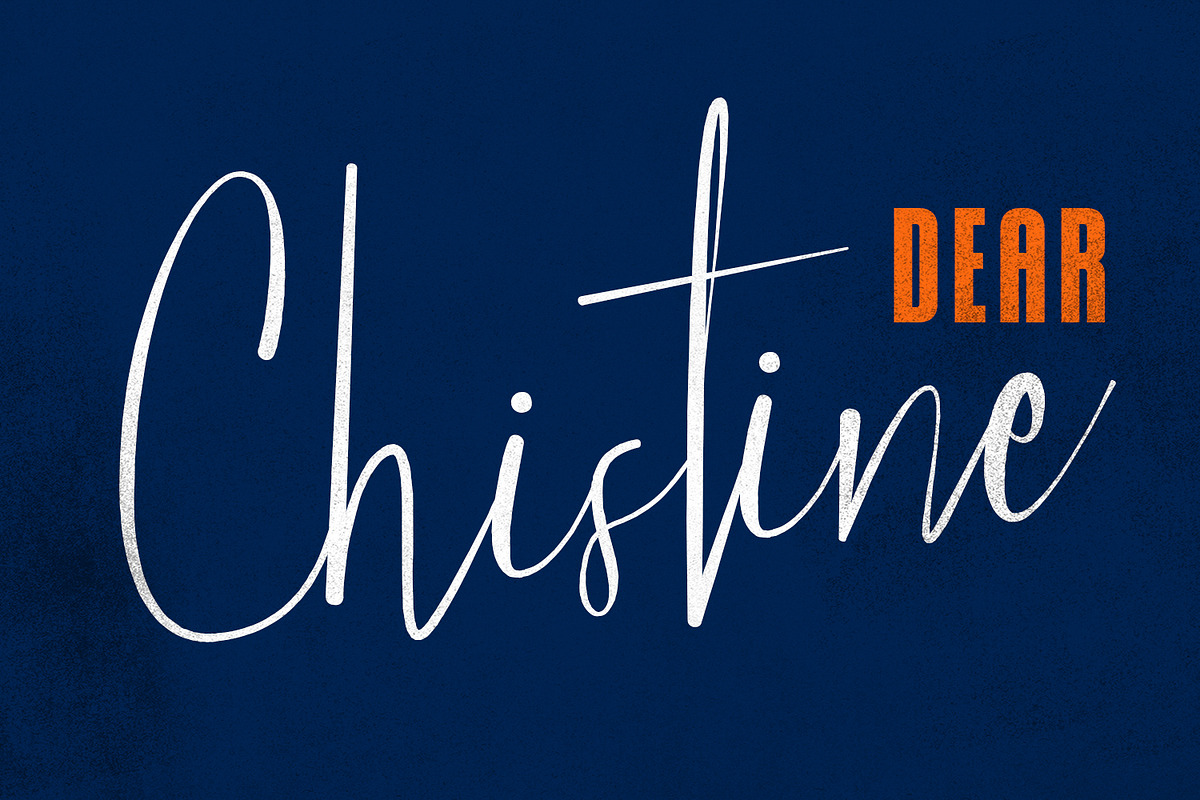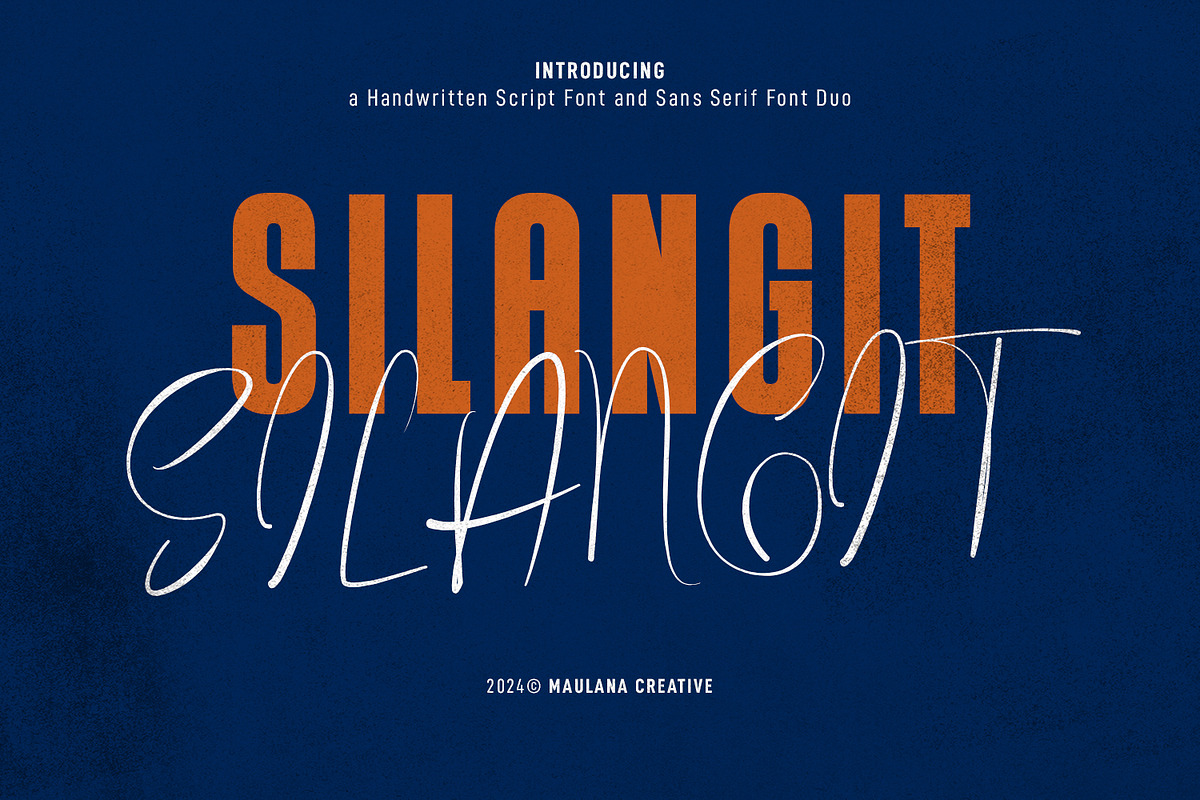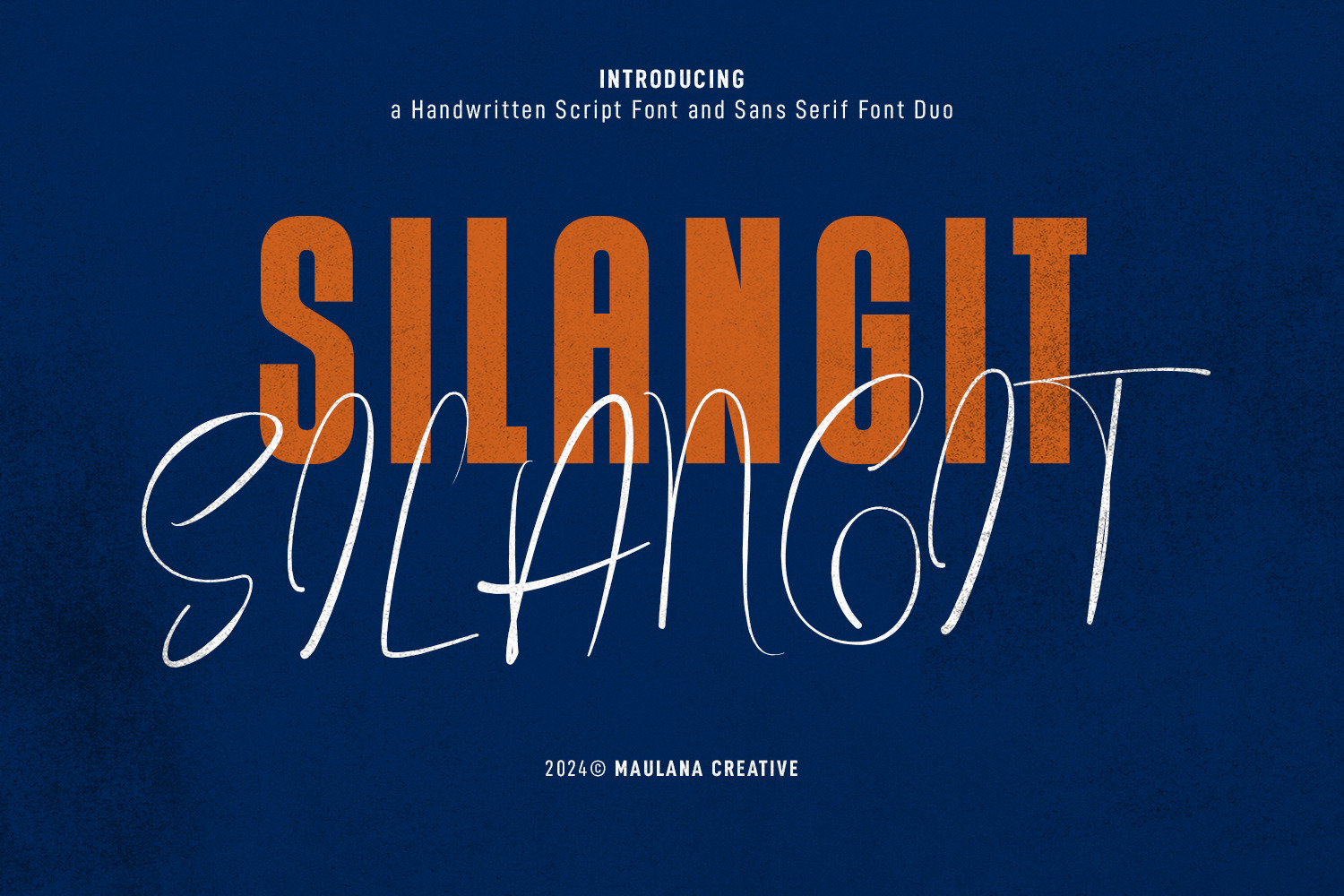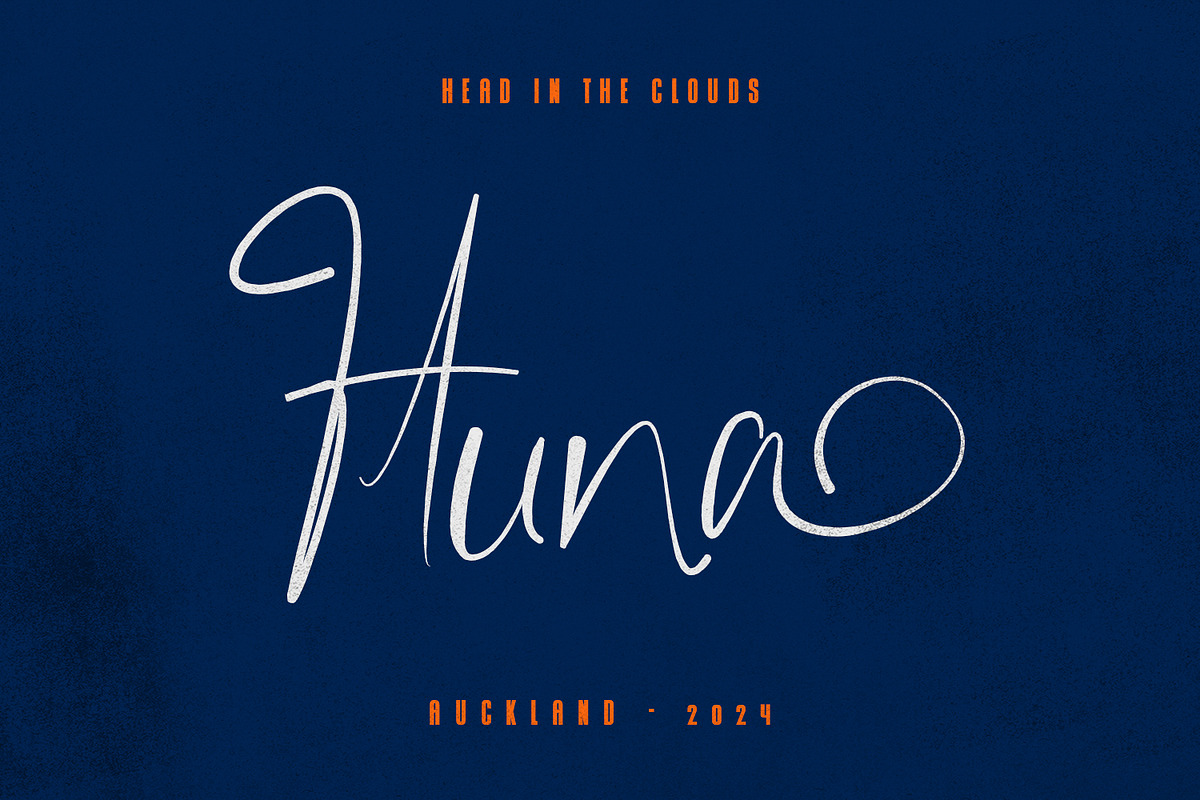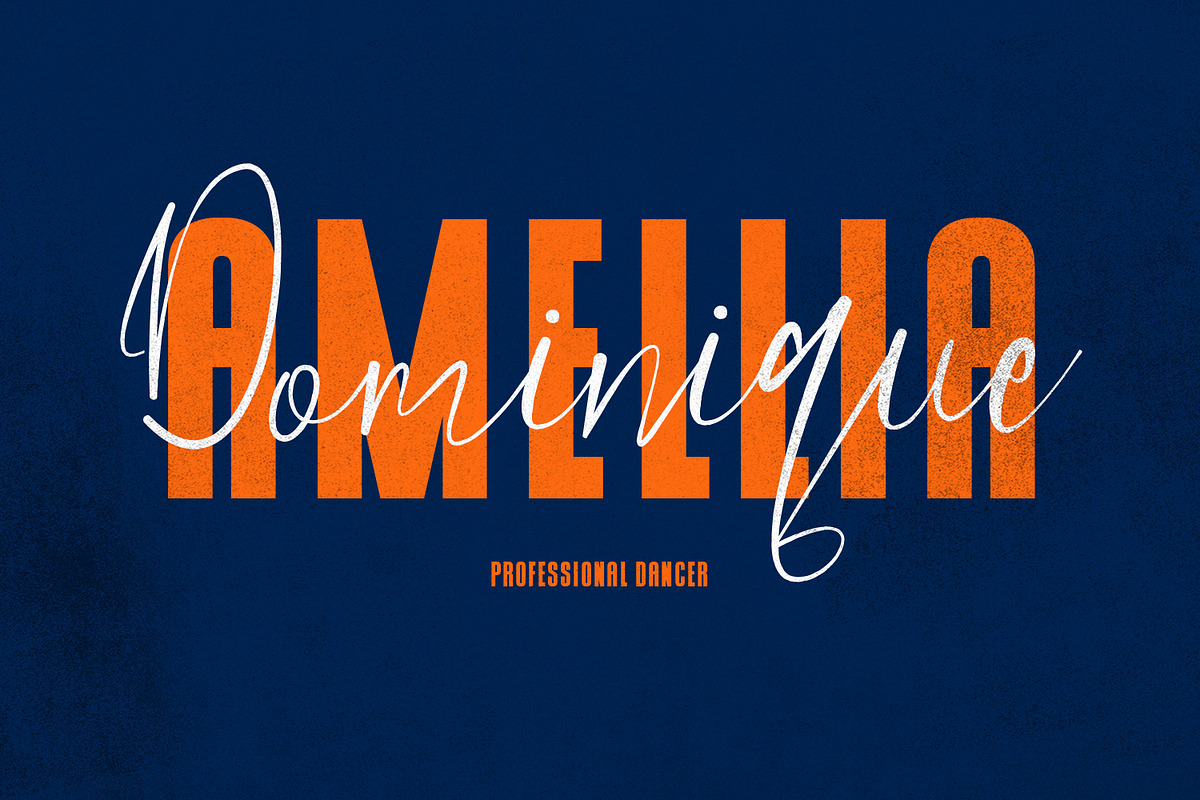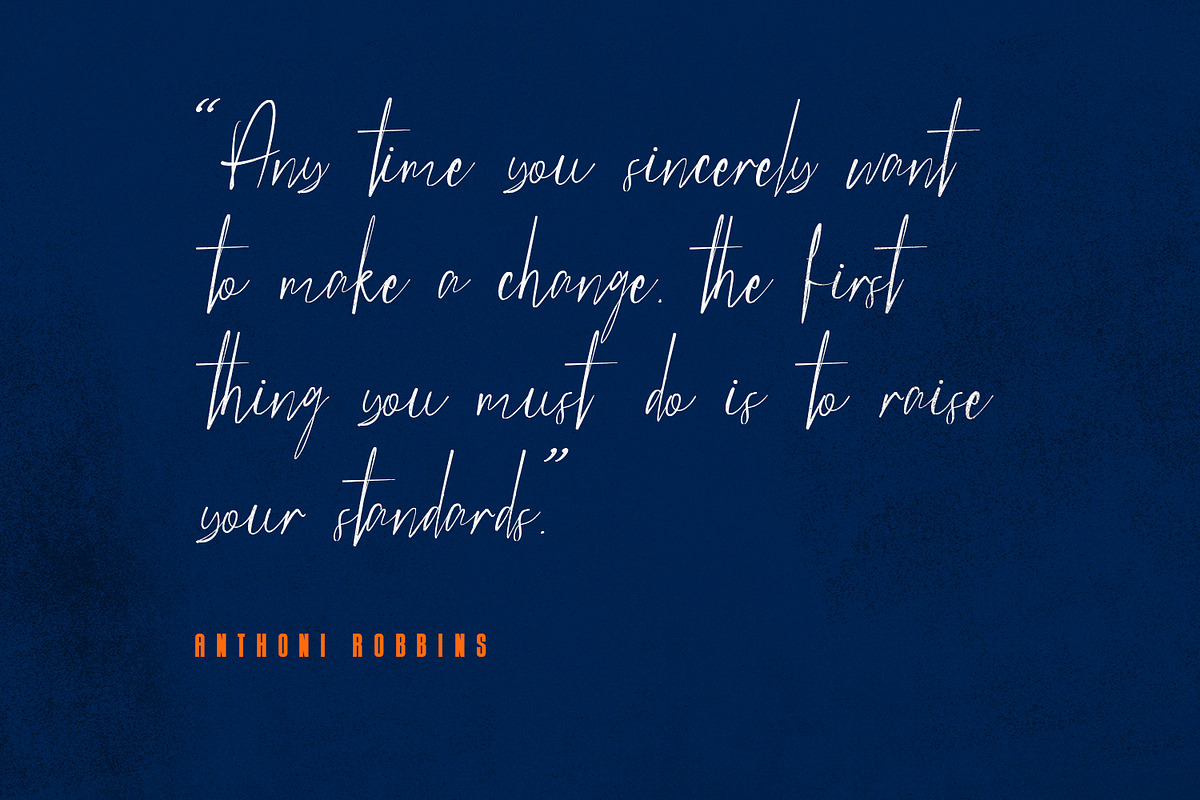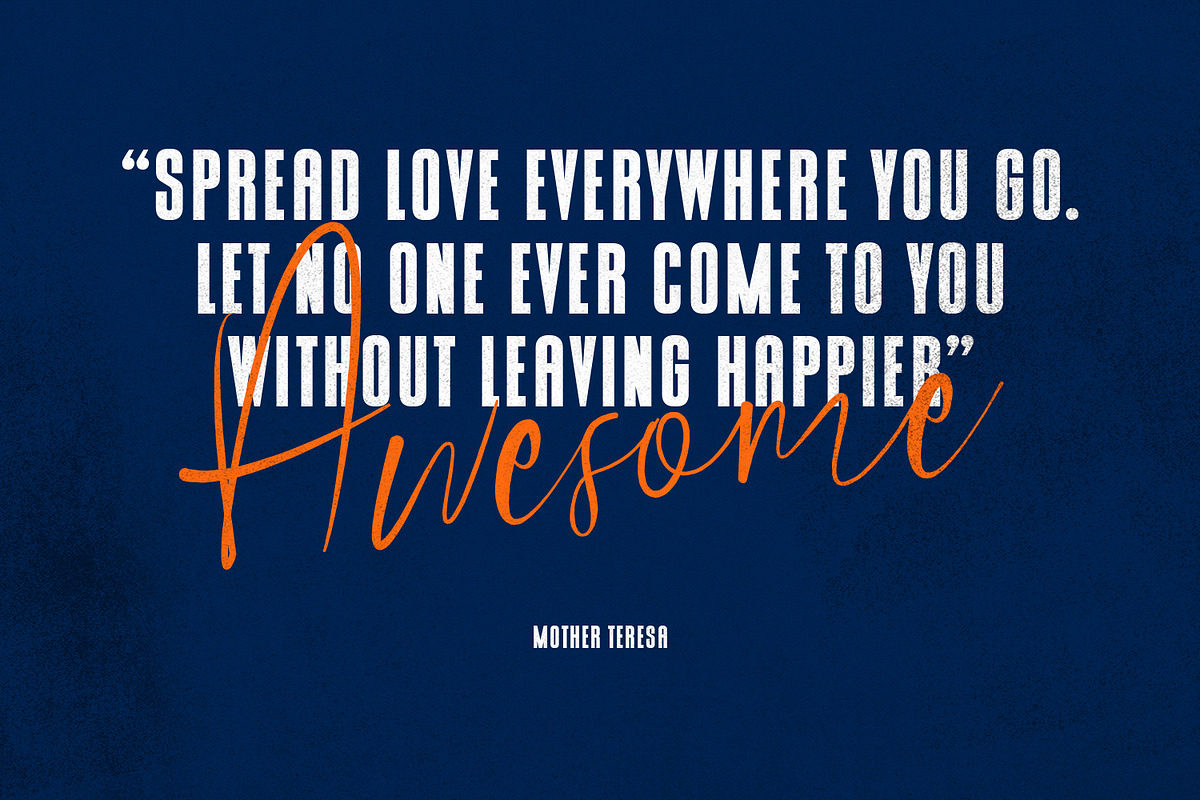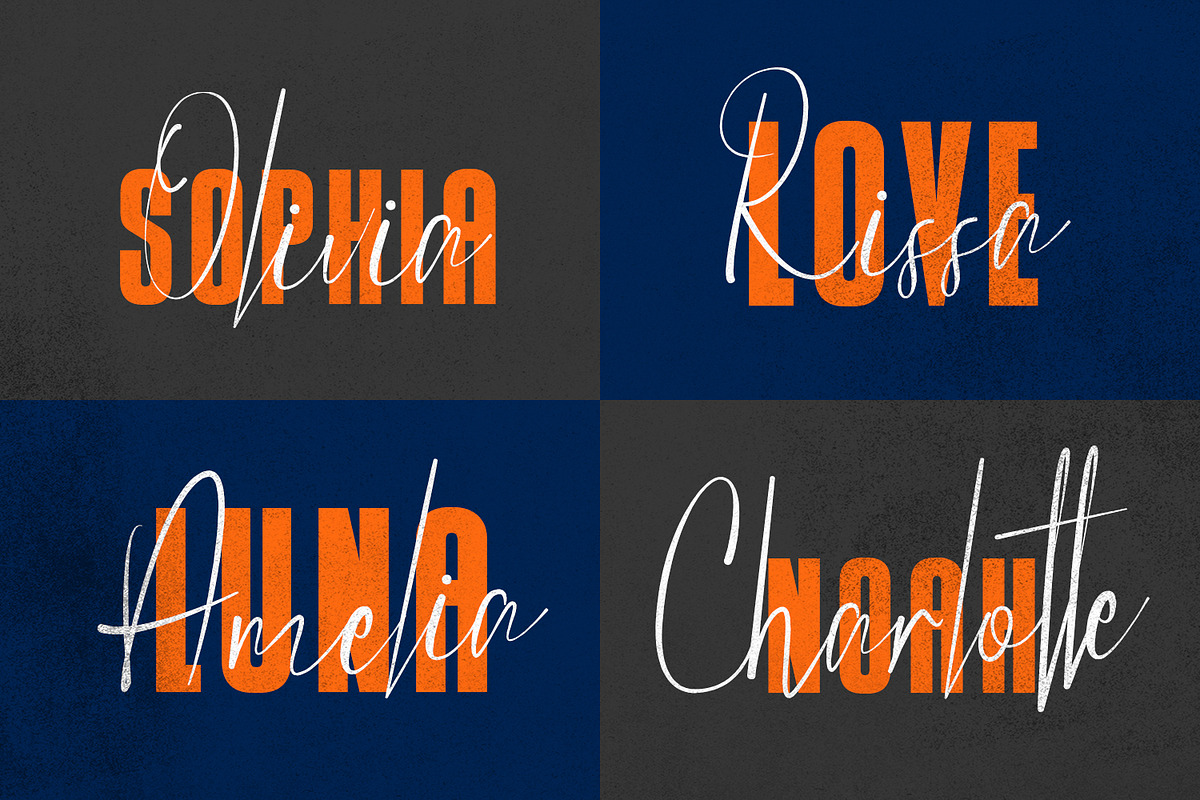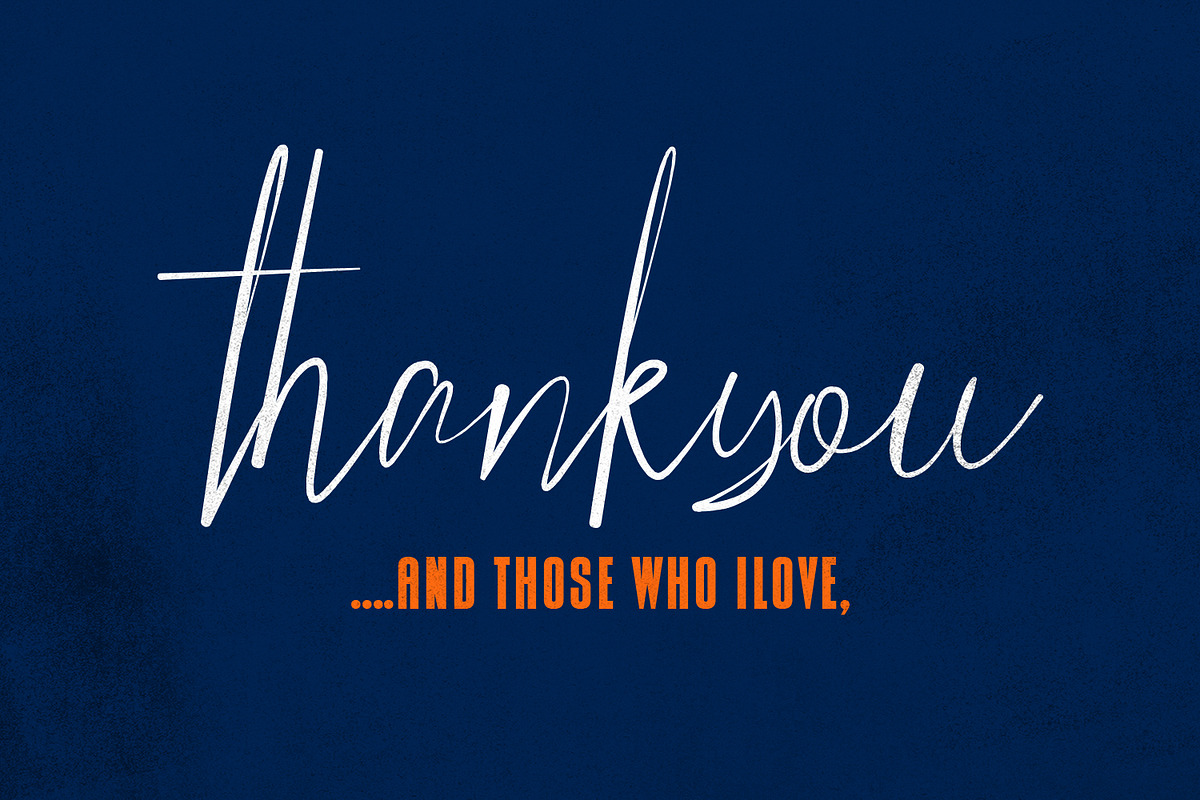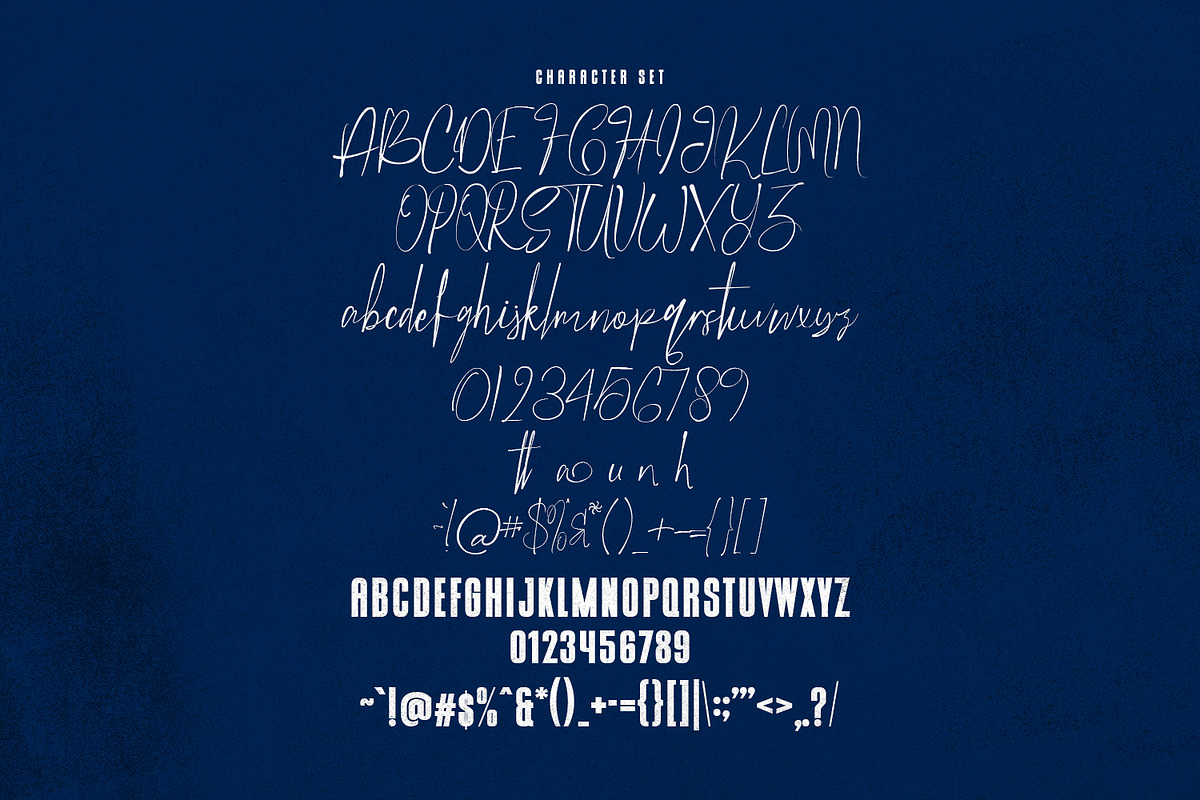
Silangit Font Duo
Give your designs an authentic brush handcrafted feel. “ Silangit” is perfectly suited to signature, stationery, logo, typography quotes, website header, branding and more.